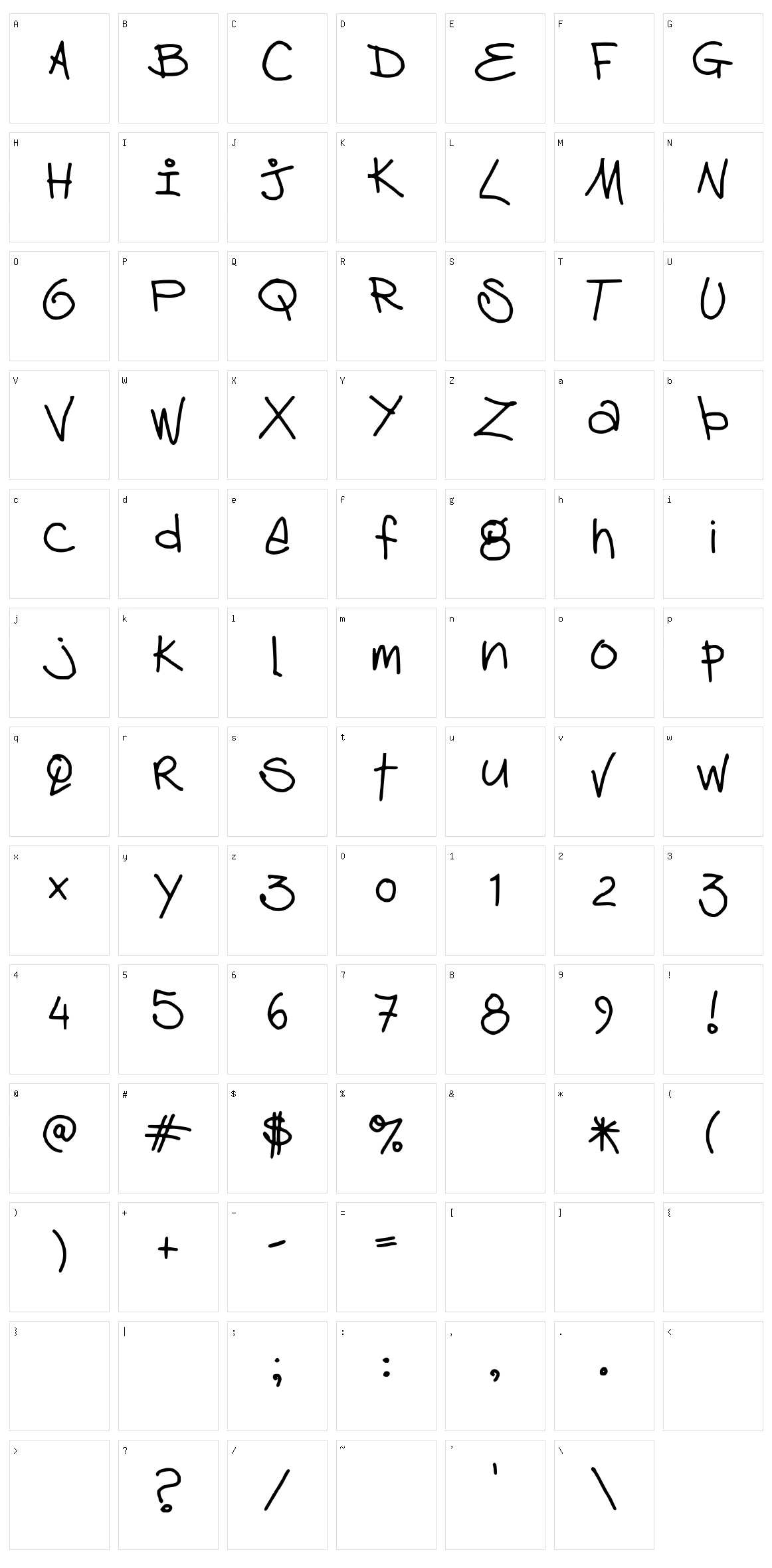
The free font Deb Handwriting is carefully designed by Deb Kerkhof, showcasing a thoughtful balance of creativity and usability and falls under the Script font style. When you download the ZIP file, it contains only 15.43 KB of font files, making it lightweight and quick to download. Please review the license details below to understand permitted usage and distribution rights. If license information is not available, we recommend using this font for personal projects only or contacting the author directly for commercial usage permissions.